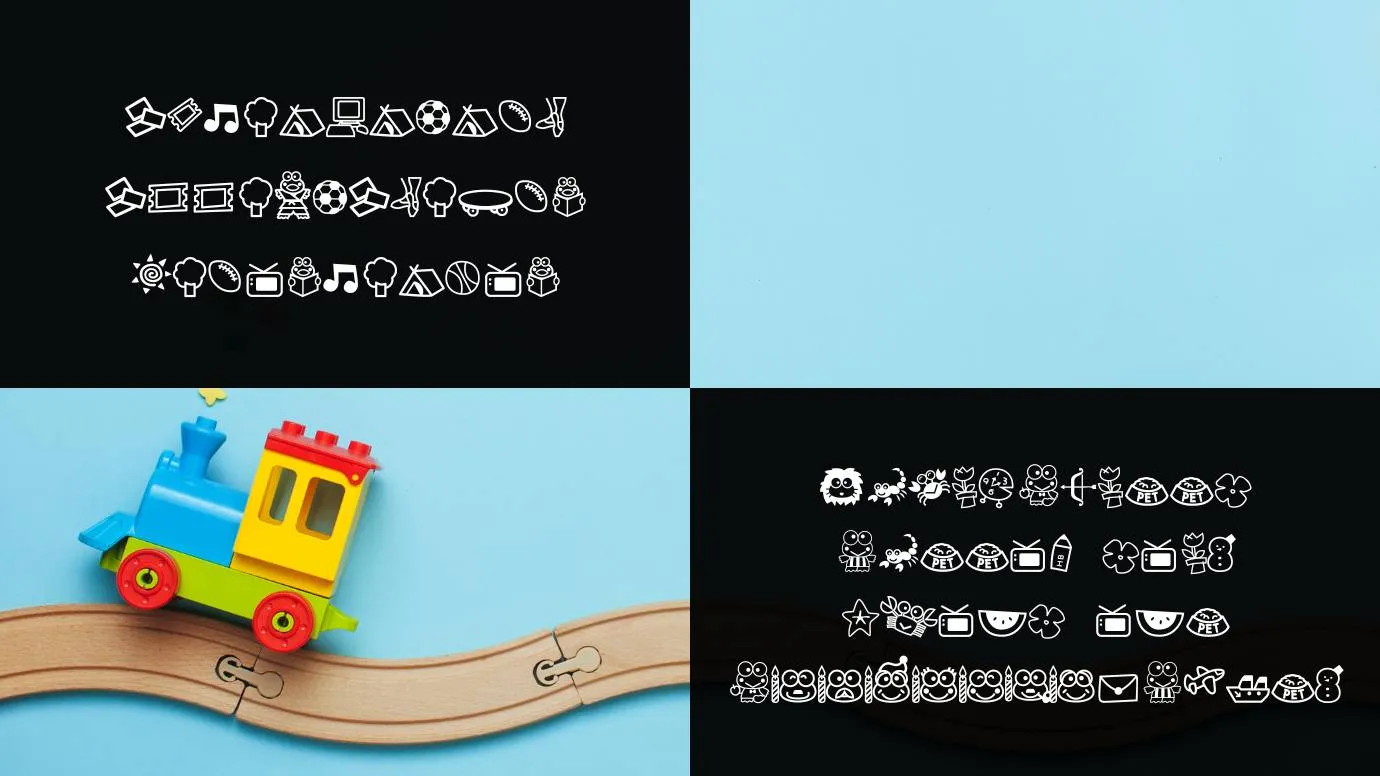
Another fantastic font, Keroppi Font is a Dingbat texture design. The typeface comes in all three styles regular, bold, and italic. It is a great choice for highlighting your design elements.
The typeface includes classic symbols as it belongs to the category of Dingbats. It can be used in a number of designs like book covers, and logos besides any project.
This typeface is considered one of the classic typefaces that match well with asian food font because of its appearance and style. It has more height and width. and a large number of alphabets.
The typeface is somewhat similar to mythical font as both possess a compact structure while it is straight and open but gives an amicable appearance to your personal work.
The creator of the dingbat’s typeface is Unknown. The typeface has organic formations and various symbols.
| Name | Keroppi Font |
| Style | Dingbats |
| Designer | Unknown |
What type of texture is Keroppi font?
It has a graceful and unique texture look. The typeface comes in all three styles regular, bold, and italic. It is a great choice for highlighting your design elements.
How old is Keroppi Font?
It is a modern typeface style. This style is very flexible, which means that you can use it in various ways. It can be used in a number of designs like book covers, and logos besides any project.